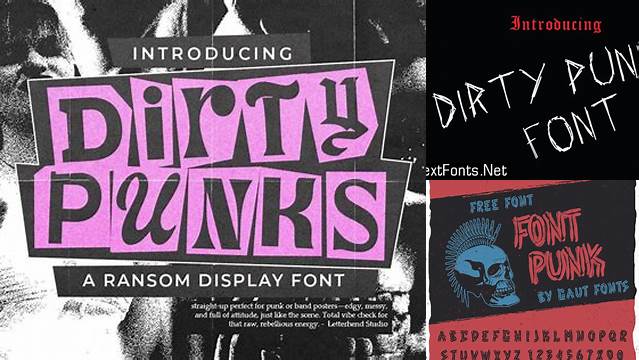
Dirty Punk Font: Free Download For Edgy Designs
So, you're looking to add some serious edge to your designs, huh? Dirty punk fonts are the way to go! They're raw, rebellious, and oozing with attitude. Perfect for posters, album art, and anything that needs a bit of that DIY, anti-establishment vibe. Let's dive into where you can snag these killer fonts for free and how to make the most of them.
1. Understanding the Appeal of Dirty Punk Fonts
What makes dirty punk fonts so darn appealing? It's all about that gritty, hand-made feel. Think ripped posters, stenciled graffiti, and the raw energy of punk rock. These fonts often feature rough edges, distressed textures, and an overall sense of imperfection that screams authenticity. They capture the rebellious spirit of the punk movement, making them ideal for projects that aim to challenge the status quo or simply stand out from the crowd. When you use a dirty punk font, you're not just choosing a typeface; you're embracing a whole aesthetic. It's about conveying a message of independence, non-conformity, and unapologetic self-expression. Whether you're designing a band flyer or a clothing label, these fonts can instantly inject a dose of attitude and make your message unforgettable.
3. Key Characteristics of a Good Dirty Punk Font
What exactly defines a good dirty punk font? Well, it's more than just looking rough and messy. Key characteristics include a strong, often irregular letterform, distressed textures, and a bold, impactful presence. The best dirty punk fonts capture the essence of the punk aesthetic – think ransom note typography, stenciled letters, and a general DIY vibe. Look for fonts with variations in stroke weight, uneven edges, and perhaps even some deliberate imperfections. A good dirty punk font should also be legible, even with all the grunge. It needs to be attention-grabbing without sacrificing readability. Ultimately, the perfect font will depend on your specific project, but these are some general guidelines to keep in mind when you're browsing through your options. You want something that screams rebellion but still gets your message across, right?
5. Utilizing Dirty Punk Fonts in Graphic Design
Now for the fun part: using your new dirty punk fonts in actual designs! These fonts are fantastic for posters, flyers, album covers, and anything that needs a rebellious edge. Think band merchandise, skate decks, and even edgy website headers. When using these fonts, consider pairing them with bold colors, distressed textures, and other elements that reinforce the punk aesthetic. Don't be afraid to experiment with layering, masking, and other creative techniques to create unique and eye-catching designs. Remember, the key is to embrace imperfection and let the font's inherent attitude shine through. Dirty punk fonts are not for the faint of heart; they demand attention and make a statement. So, go wild, break the rules, and create something truly unforgettable!
6. Pairing Dirty Punk Fonts with Other Typefaces
While dirty punk fonts are awesome on their own, pairing them with the right complementary typefaces can elevate your designs even further. Consider using a clean, sans-serif font for body text to provide a contrast with the grungy headline. A classic choice is pairing a dirty punk font with something like Helvetica or Arial for a balanced and readable layout. Alternatively, you could use a more stylized sans-serif font with geometric shapes to create a modern and edgy look. The key is to find a balance between the rebellious energy of the dirty punk font and the clarity and readability of the supporting typeface. Experiment with different combinations until you find something that works for your specific project. Don't be afraid to mix and match styles, but always keep readability in mind. After all, you want people to be able to read your message, even if it's delivered with a punk rock snarl!
7. Creating a Distressed Effect to Match Your Font
Want to take your designs to the next level? Create a distressed effect to perfectly match your dirty punk font. This can be done in programs like Photoshop or GIMP. Start by adding a texture overlay to your design – think grunge textures, splatters, or even scanned paper textures. Experiment with different blending modes like Multiply or Overlay to achieve the desired effect. You can also use brushes with rough edges to add additional distressing to the text or background. Another technique is to use layer masks to selectively reveal or hide parts of the design, creating a sense of depth and wear. The goal is to make the entire design feel cohesive and authentic, as if it's been ripped, torn, and weathered over time. So, get creative, experiment with different techniques, and don't be afraid to get your hands dirty (digitally, of course!).
8. The History and Influence of Punk Typography
To truly appreciate dirty punk fonts, it's helpful to understand the history and influence of punk typography. The punk movement emerged in the 1970s as a reaction against mainstream culture, and its visual aesthetic reflected this rebellious spirit. Punk typography was characterized by its DIY approach, often using hand-made lettering, stencils, and collage techniques. Think of the iconic Sex Pistols album covers, designed by Jamie Reid, which featured ransom-note lettering and bold, chaotic imagery. This raw and unapologetic style of typography became synonymous with the punk movement and has continued to influence graphic design ever since. Dirty punk fonts are a direct descendant of this rebellious tradition, capturing the same energy and attitude that defined the original punk aesthetic. By understanding the historical context, you can use these fonts with greater purpose and authenticity in your own designs.
9. Common Mistakes to Avoid When Using Dirty Punk Fonts
Okay, guys, let's talk about some common pitfalls to avoid when using dirty punk fonts. First and foremost, don't overuse them! A little bit of punk goes a long way. Using a dirty punk font for every single element of your design can quickly become overwhelming and illegible. Instead, use it sparingly for headlines or key phrases, and pair it with a cleaner typeface for body text. Another mistake is choosing a font that's too distressed. While the grunge is part of the appeal, you still need to make sure your message is readable. Avoid fonts with excessive damage or overly complex letterforms that can obscure the text. Finally, pay attention to kerning and letter spacing. Even the grungiest font needs to be properly spaced to ensure readability. By avoiding these common mistakes, you can use dirty punk fonts effectively and create designs that are both edgy and professional.
10. Dirty Punk Fonts for Logos and Branding
Can dirty punk fonts work for logos and branding? Absolutely! But it requires a strategic approach. A dirty punk font can give your brand a unique and memorable identity, especially if you're targeting a younger or more rebellious audience. However, it's crucial to consider the overall brand image and ensure that the font aligns with your values and messaging. If you're using a dirty punk font for your logo, keep it simple and legible. Avoid overly complex or distressed fonts that can be difficult to read at smaller sizes. Consider pairing the font with a clean and modern design to create a balanced and professional look. Remember, your logo is the face of your brand, so it needs to be both eye-catching and easily recognizable. With careful planning and execution, a dirty punk font can be a powerful tool for creating a brand identity that stands out from the crowd.